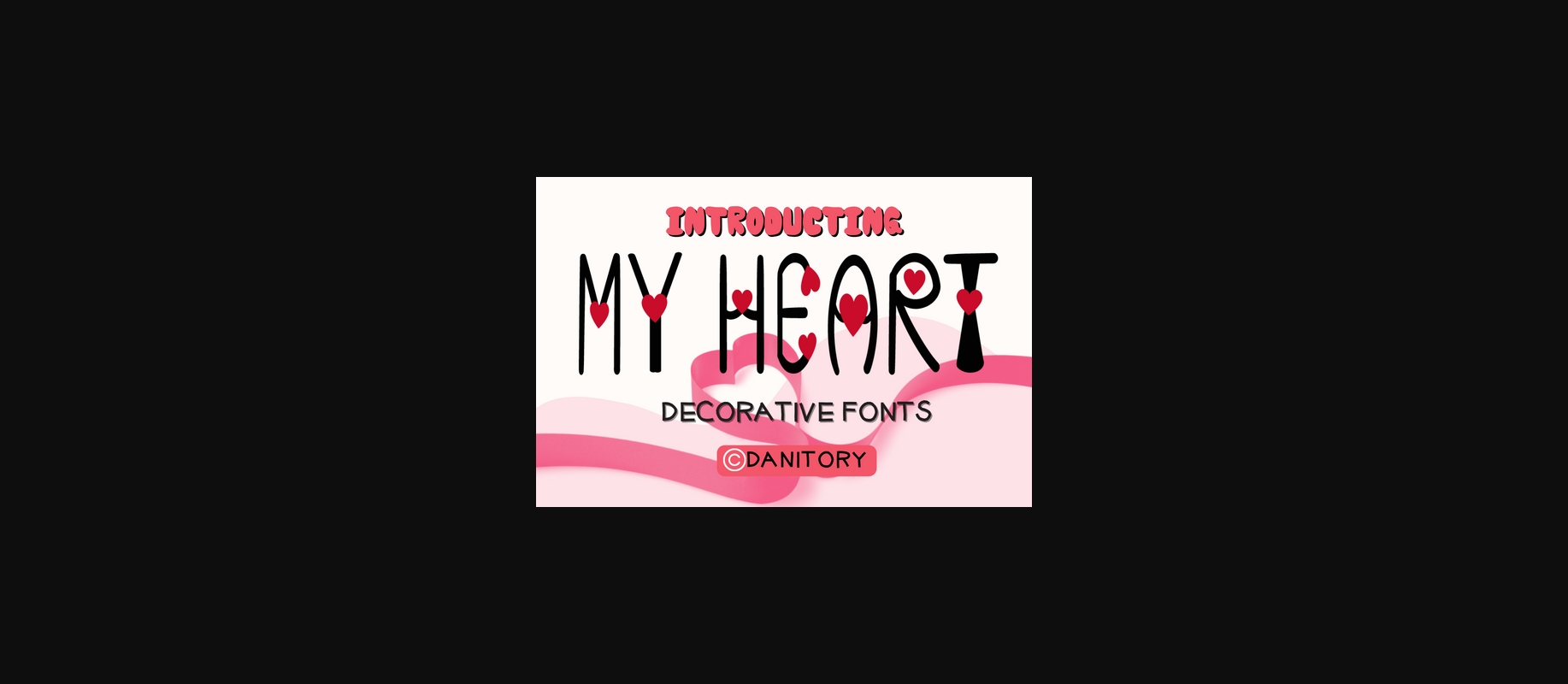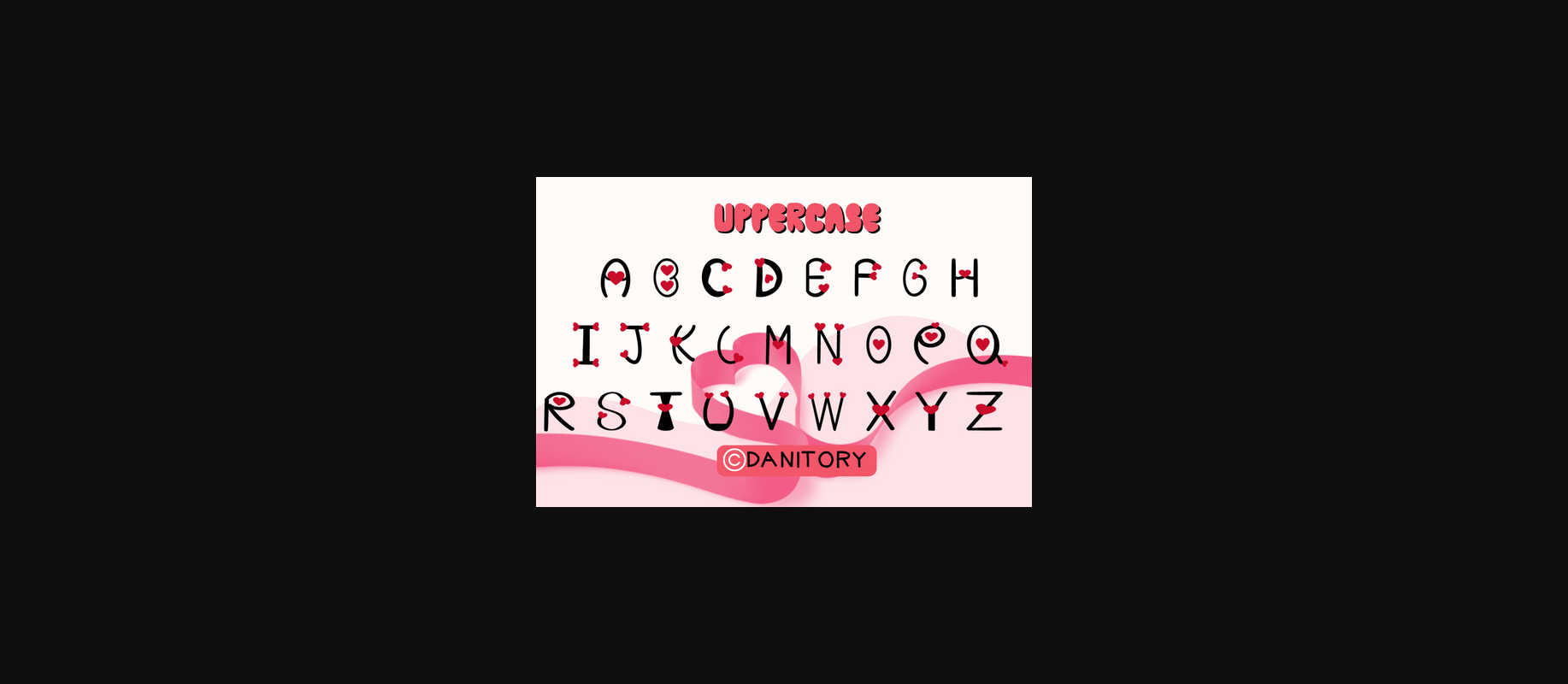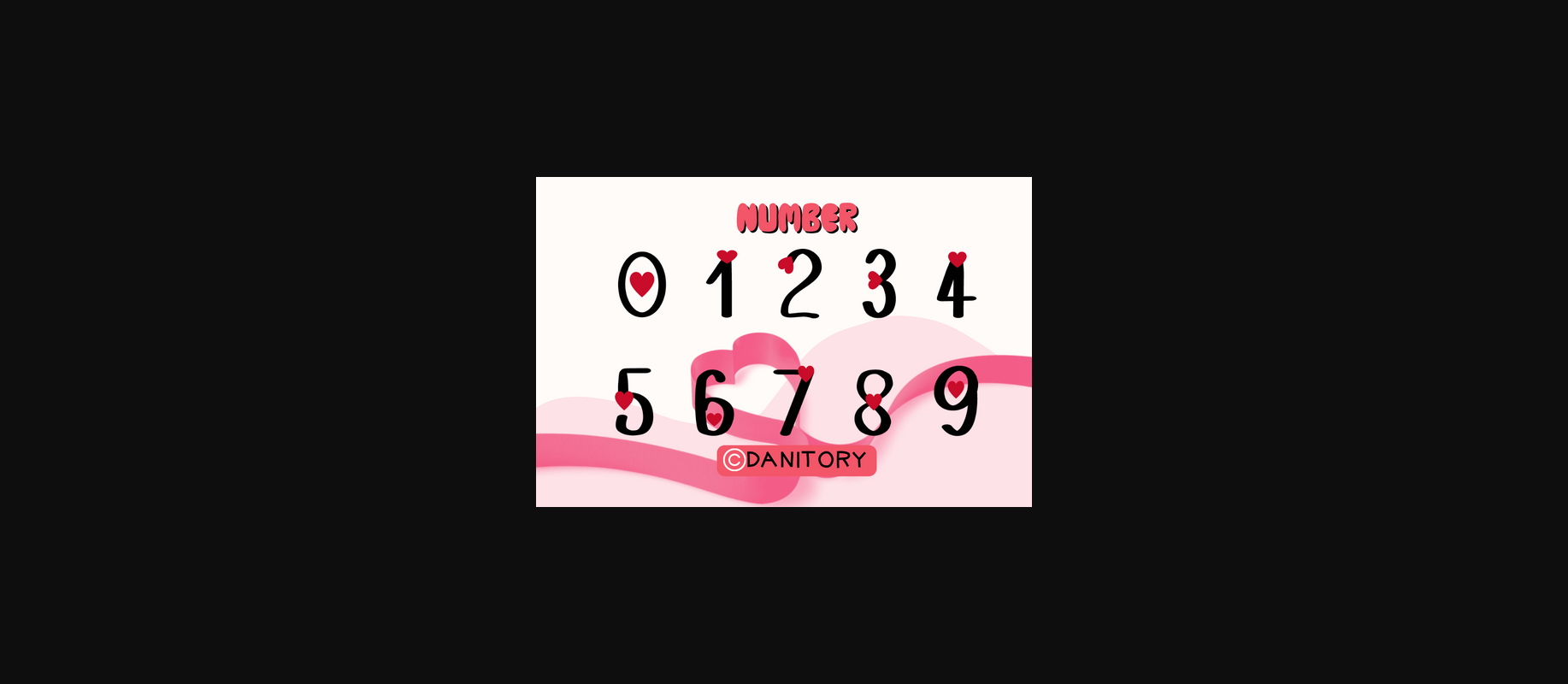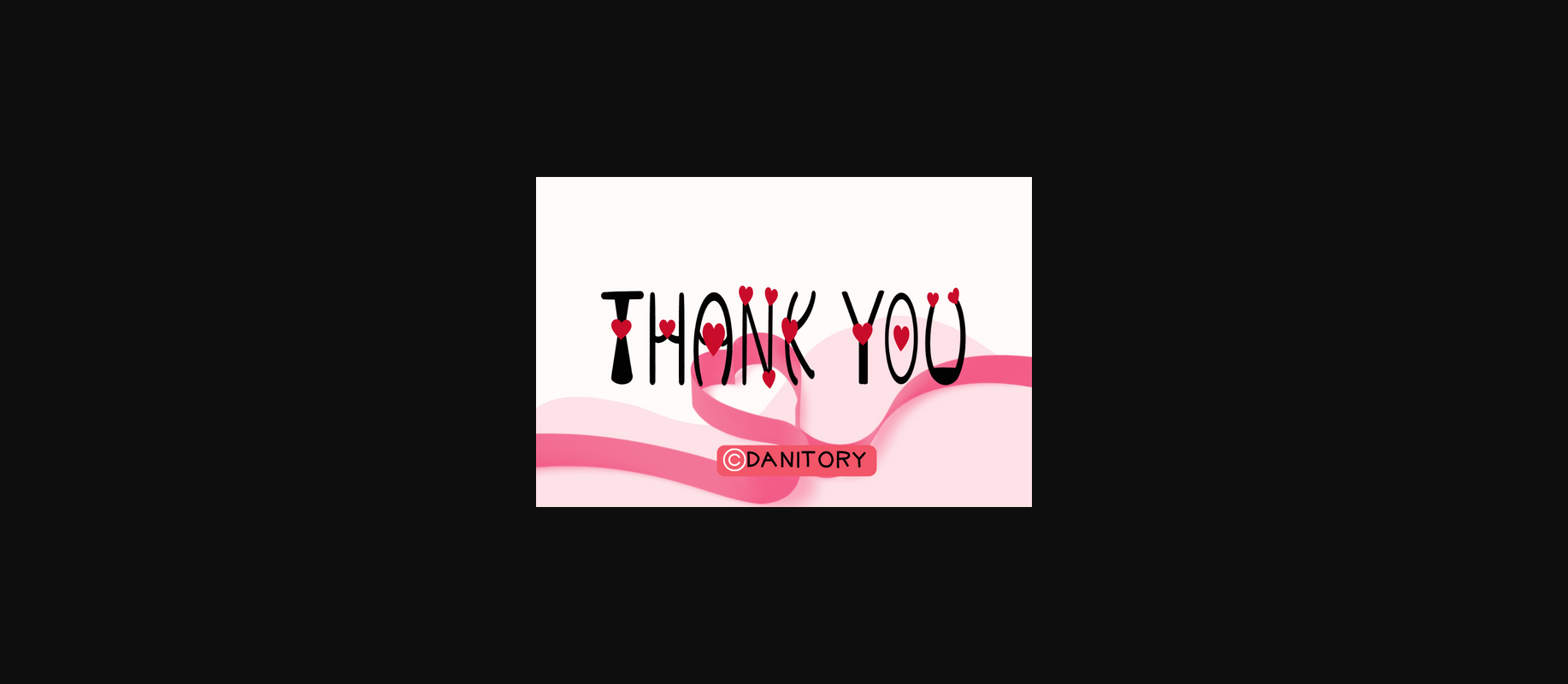
HomeDecorative FontsMy Heart Font Decorative Fonts My Heart Font FacebookXPinterestWhatsApp 1 of 6 ... My Heart Font Poster 2... My Heart Font Poster 3... My Heart Font Poster 4... My Heart Font Poster 5... My Heart Font Poster 6... About My Heart Font My Heart is a sweet and adorable handwritten decorative font. Add it to your crafty ideas and enjoy the results! DOWNLOAD NOW People also explored Misegar Font Little Butterfly Font Decorative Legendary Font Girly Dreams Font Vintage School Font Alexandroupoli Darlington Font Picture Font Churchward Supascript 282 0 TagsMy Heart Font Previous articleBlessed Jolly FontNext articleSoban Chinese Monogram Font LEAVE A REPLY Cancel reply Comment: Please enter your comment! Name:* Please enter your name here Email:* You have entered an incorrect email address! Please enter your email address here Website: Save my name, email, and website in this browser for the next time I comment. Personal Use Free Remember Personal Use Free Read more about this font Cataleya Personal Use Free Read more about this font Predators Personal Use Free Read more about this font Quickline Personal Use Free Read more about this font BLOG How to Cut Any Font on Cricut: Convert a Font to SVG (Free) Turn any font into a clean SVG so it cuts crisp on Cricut - a quick 3-step workflow using a free font-to-SVG tool. Transform Your Website: Elevate Your Typography with 7 Best Web Font Generators Using Fonts in Digital Marketing: Tips to Strengthen Your Brand Identity How to Install and Use Fonts on Windows, macOS, and Web Projects